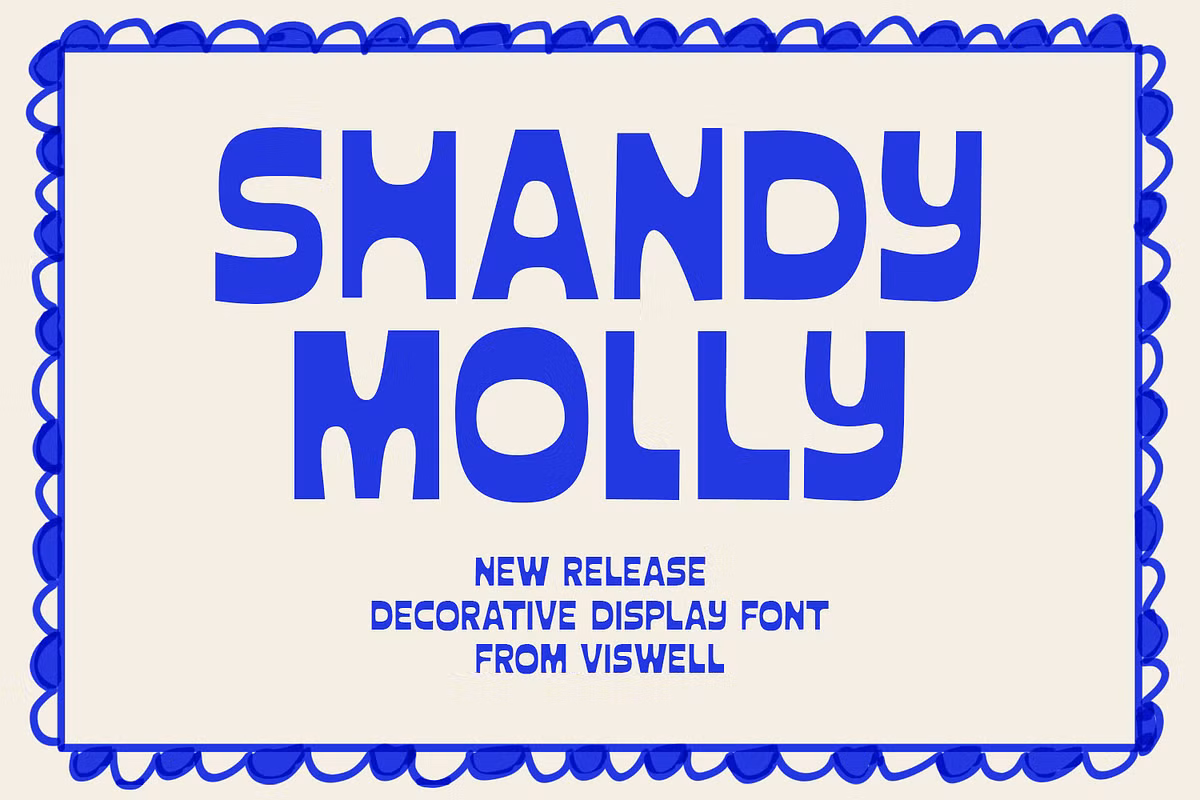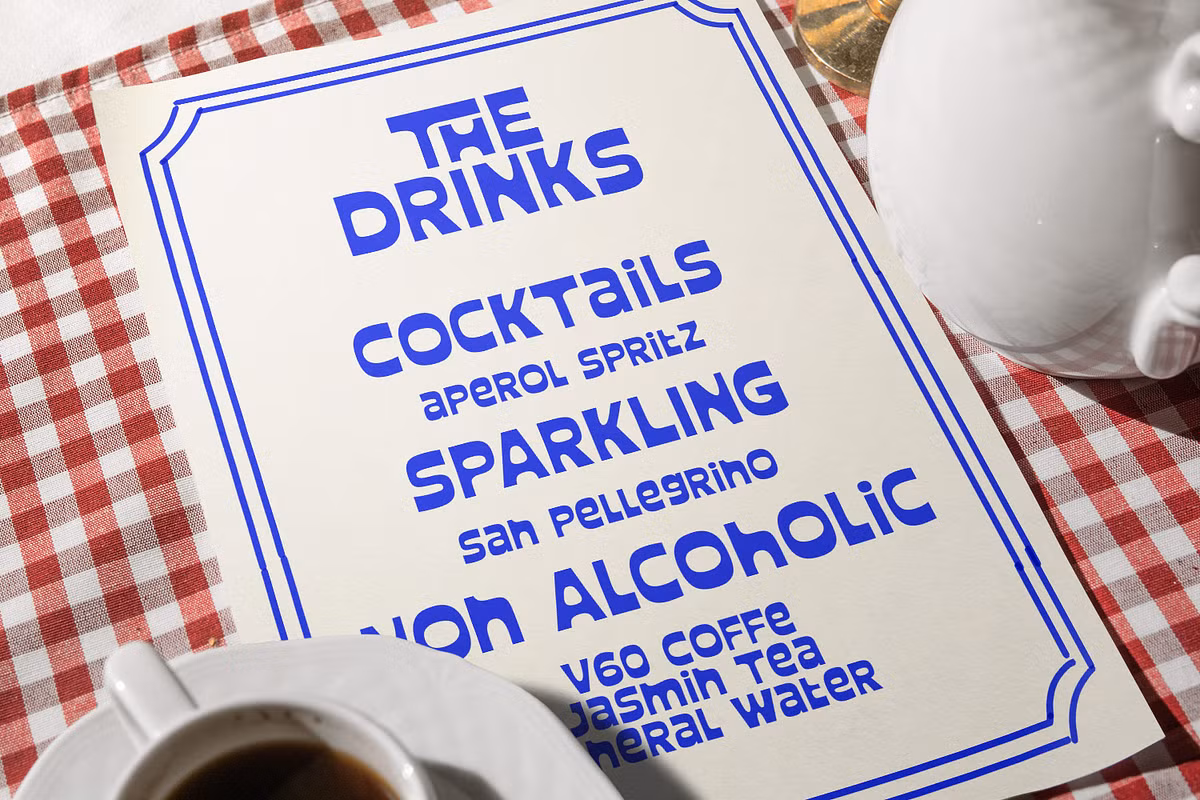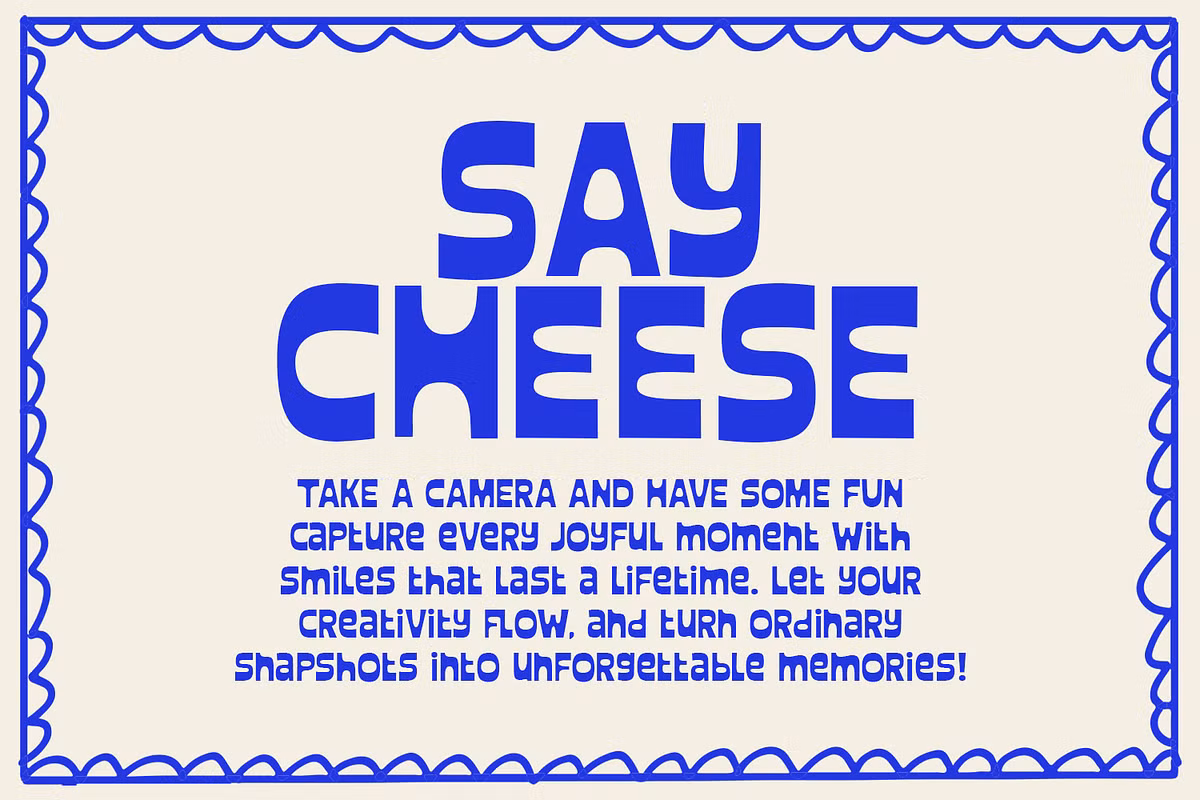
Shandy Molly - Display Font
Shandy Molly: Bold Decorative Display Font for Creative Projects
Introducing Shandy Molly
Shandy Molly is a really cool font that can add a lot of personality to your work. It’s got some really unique and fun letters that can help you make a big impact with your designs. If you’re working on something like a headline or a brand’s logo, this font is a great choice. It’s also good for things like packaging, posters, and other creative projects. The best part is that it looks great both on paper and on screens, so you can use it for pretty much anything.
That’s why designers and artists love using Shandy Molly – it’s a great tool to have in your toolbox. With its modern look, you can use it to make your designs stand out and be really eye-catching. Whether you’re trying to make a statement or just want to add some flair to your work, Shandy Molly is a great font to use. It’s perfect for anyone who wants to add a little extra something to their designs and make them more interesting.
Example of Shandy Molly font in use
Shandy Molly font example demonstrating its unique style.
Design Style of Shandy Molly
The style of Shandy Molly really stands out because it’s so bold and decorative. Each letter is specially made to give a sense of fun and imagination, which makes this font great for projects that need a lighthearted feel. The way the curves and angles are designed for each character is very careful, so they’re not just eye-catching, but also easy to read whether they’re big or small. This makes Shandy Molly a great choice for anything that needs to be both playful and clear.
Shandy Molly’s style is perfect for modern designs, it fits in really well with the latest trends but still has its own unique look. That’s what makes it great for all sorts of projects, like posters for fun events or creating a brand identity that’s really trendy. The font is bold, so it grabs your attention, and the extra details make it even more interesting. It’s a great choice when you want to make a statement and stand out from the crowd.
Visual representation of Shandy Molly font's character design
Bold and decorative character design of Shandy Molly.
Character Sets and Font Features
Shandy Molly has a big set of characters – it’s got uppercase and lowercase letters, numbers, and lots of symbols. This means it can be used for lots of different languages, making it great for projects that need to reach people all around the world. The special way the letters are designed makes it perfect for headlines that need to stand out, and it’s also got the right characters for using in body text when you need to. It’s really versatile, so you can use it for all sorts of things.
Whether you’re working on a project that needs to be seen by people who speak different languages, or you just want a font that can add some style to your headlines, Shandy Molly is a great choice. It’s got everything you need to make your text look great, and it’s easy to use too. Shandy Molly is a great font that can add some extra flair to your designs. It comes with some extra stylistic options, like alternates and ligatures, that can give you more freedom to get creative with your text.
Use Cases for Shandy Molly
Shandy Molly is really good at lots of things and can be used in many different kinds of projects. Here are some of the best ways to use this fancy font that’s meant to stand out:
• Branding: Use Shandy Molly to create memorable logos and brand identities that reflect the personality of your business or product.
• Posters and Flyers: It’s really bold and can grab people’s attention fast.
• Packaging: Incorporate Shandy Molly into packaging designs to give products a unique and playful edge, helping them stand out on the shelves.
• Social Media Graphics: Use the font in digital graphics for social media to create engaging posts that resonate with your audience.
• Event Invitations: Whether it’s a wedding, party, or corporate event, Shandy Molly adds a fun and decorative touch to any invitation.
Shandy Molly font used in branding and packaging
Shandy Molly enhances branding and packaging designs.
Pairing Suggestions for Shandy Molly
When you’re working with Shandy Molly, you need to think about other fonts that will go well with it. This font is really bold and decorative, so you want to pair it with something simpler that won’t overwhelm your design. You want to make sure your text is still easy to read. Here are a few ideas for fonts that work well with Shandy Molly:
• Sans Serif Fonts: Pair Shandy Molly with clean sans serif fonts like Montserrat or Open Sans for body text.
If you’re a designer, this font is a must-have because it can help you make your projects really stand out. By learning more about what makes Shandy Molly special and how to use it effectively, you can take your designs to the next level and make them really memorable. Whether you’re working on a big project or just something small, Shandy Molly can help you add a touch of creativity and make it look amazing.